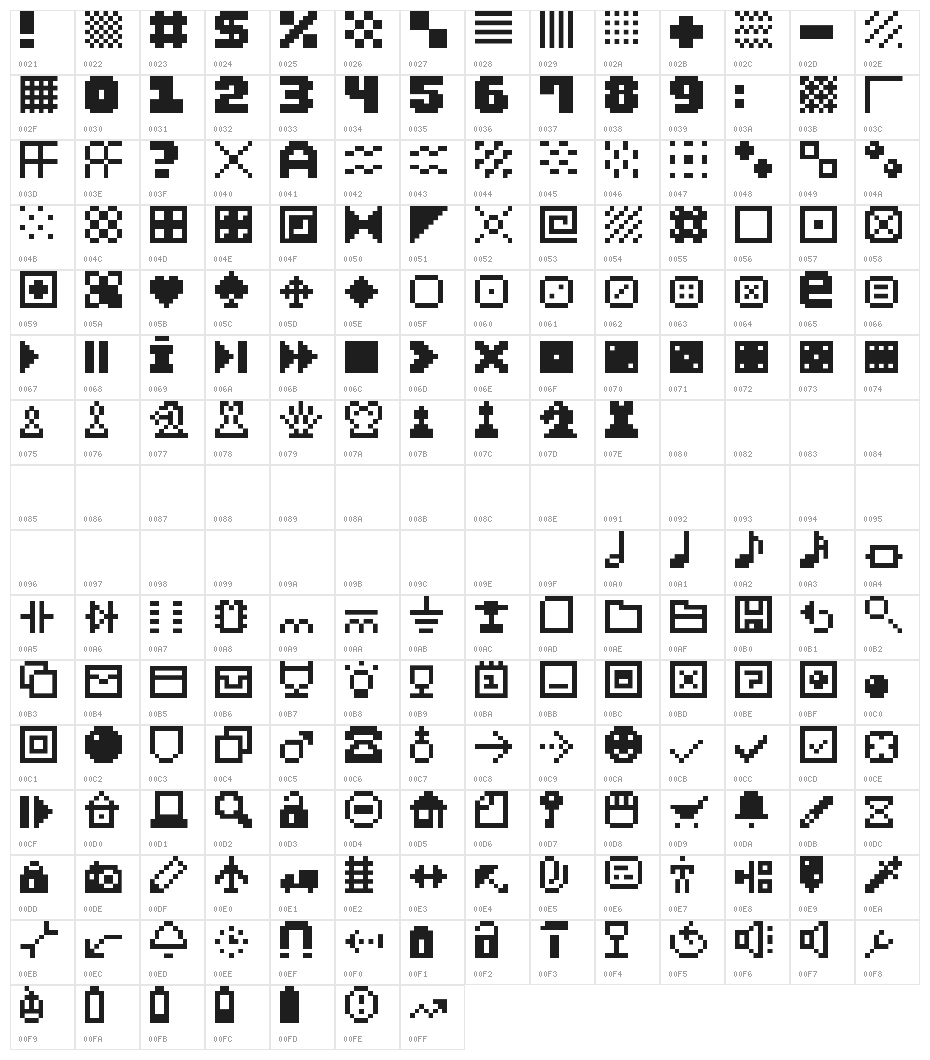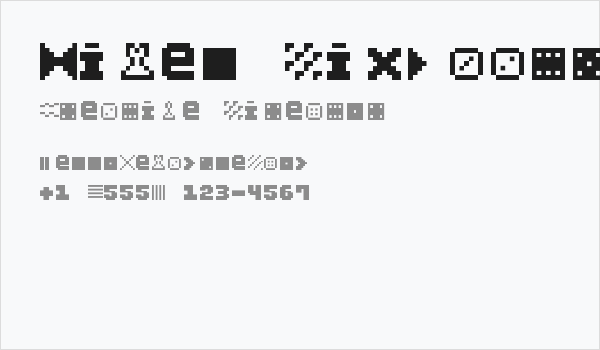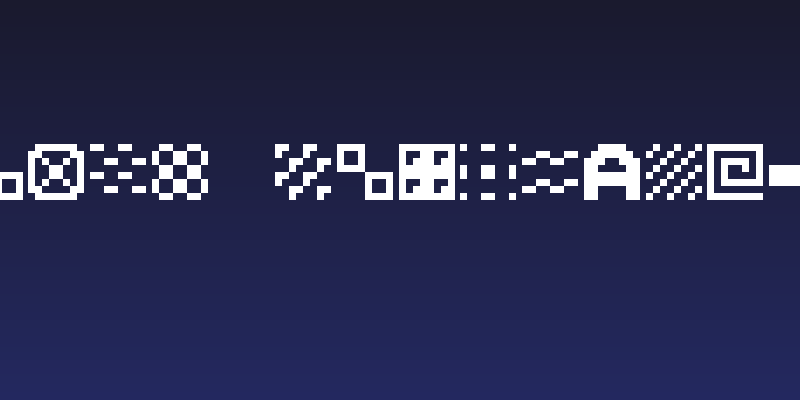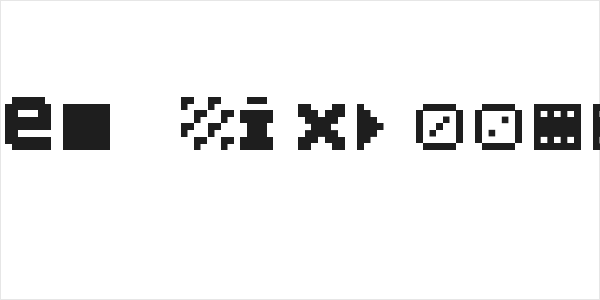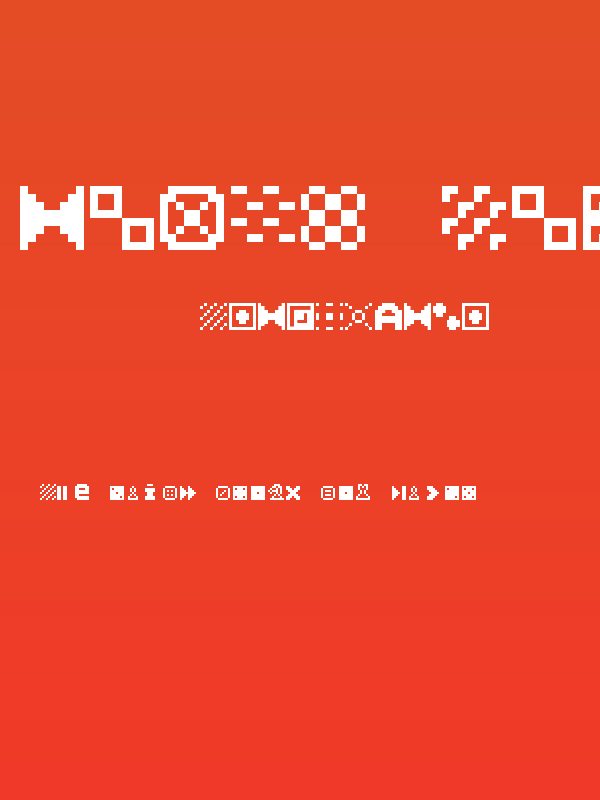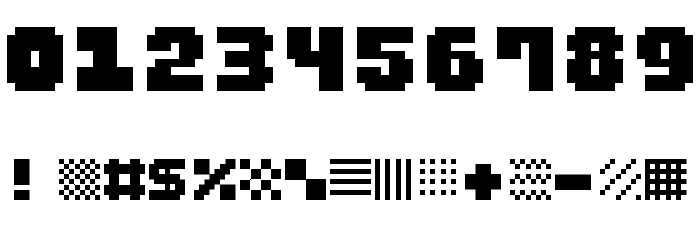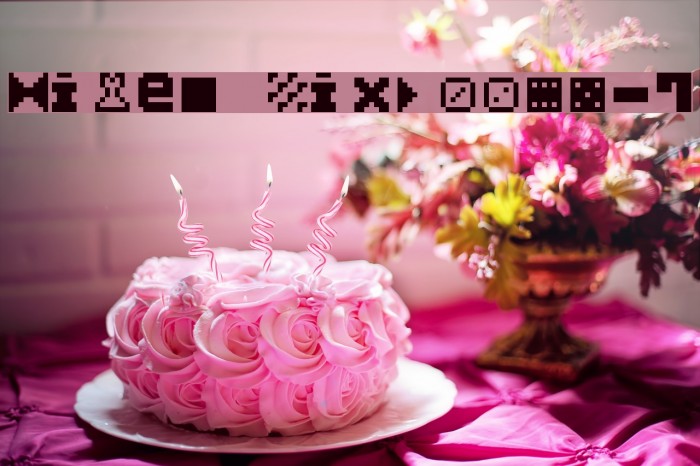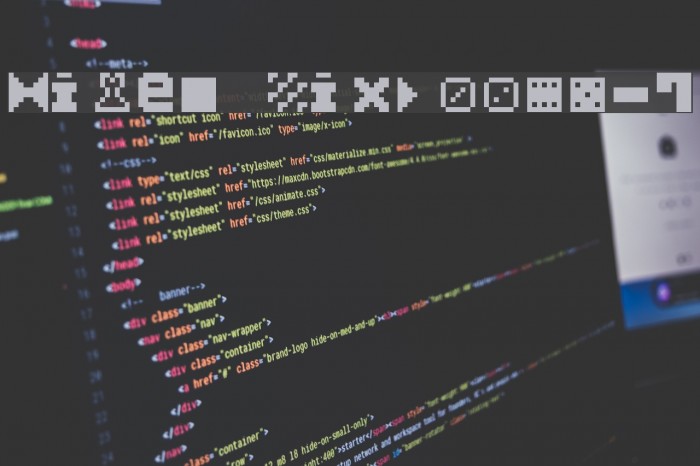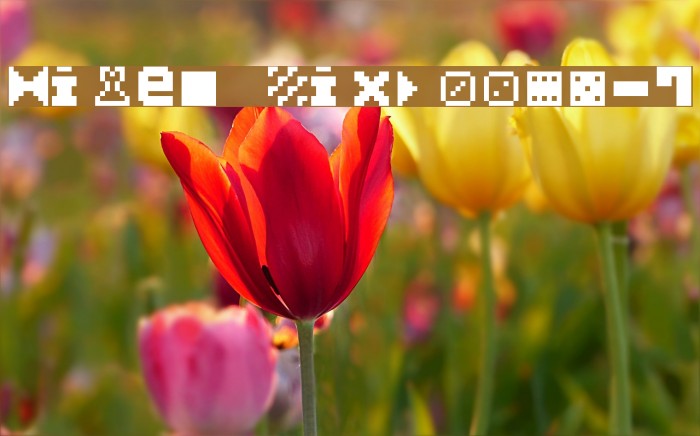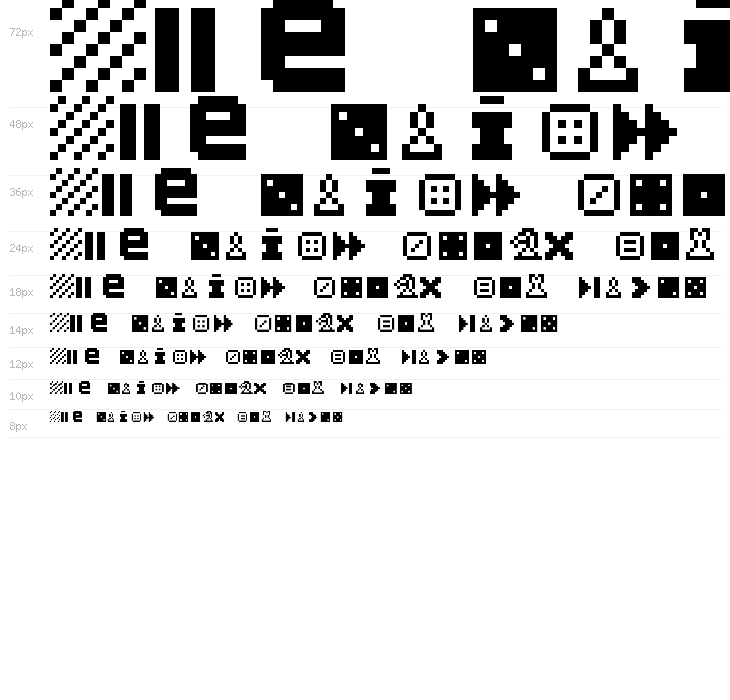
Pixel Dingbats-7 Font
Pixel Dingbats-7 Description
This font is a collection of pixelated dingbats, featuring a variety of geometric shapes and symbols. The characters are designed with a retro, 8-bit style reminiscent of early video game graphics. Each symbol is constructed using a grid of square pixels, giving it a blocky and digital appearance. The font includes a diverse range of icons, such as arrows, squares, and abstract patterns, all maintaining a consistent pixelated theme. This design is ideal for projects that aim to evoke nostalgia or a digital aesthetic, particularly those related to gaming or technology.
| Overall Style | Retro |
| Use Case | Logos, Icons, Digital Art |
| Proposed Projects | Ideal for retro video game designs, digital art projects, tech-themed presentations, and nostalgic branding. |